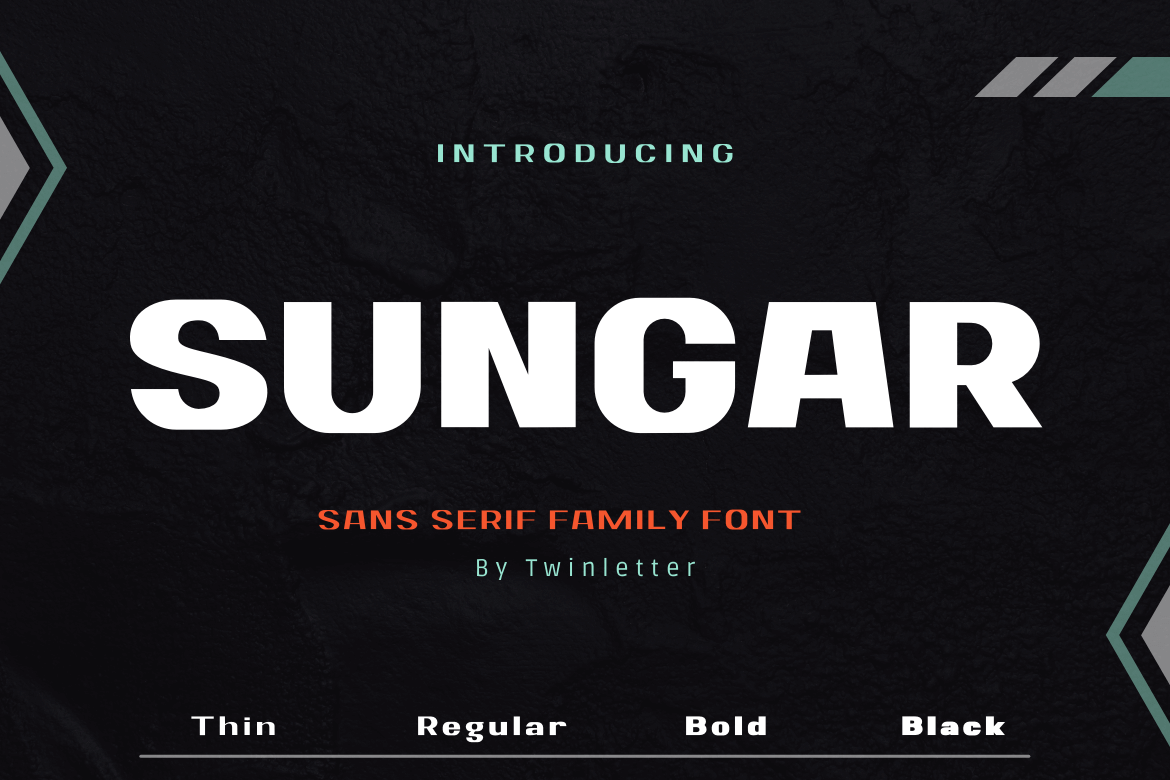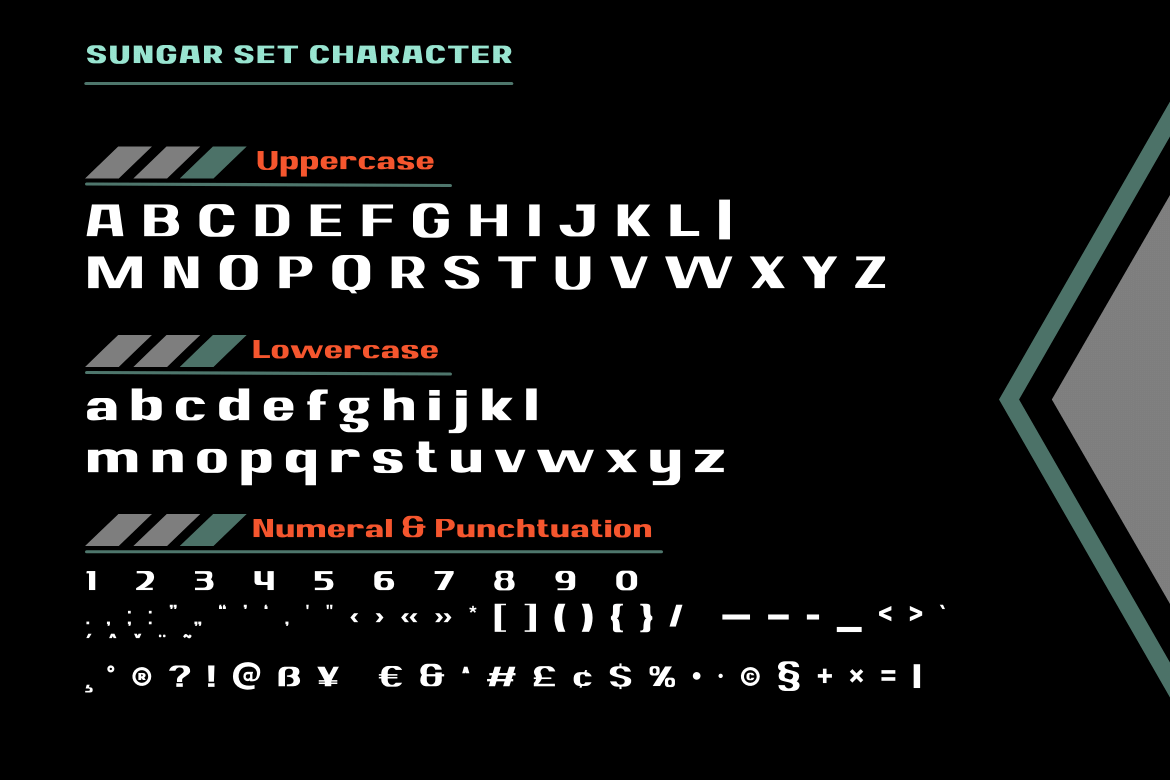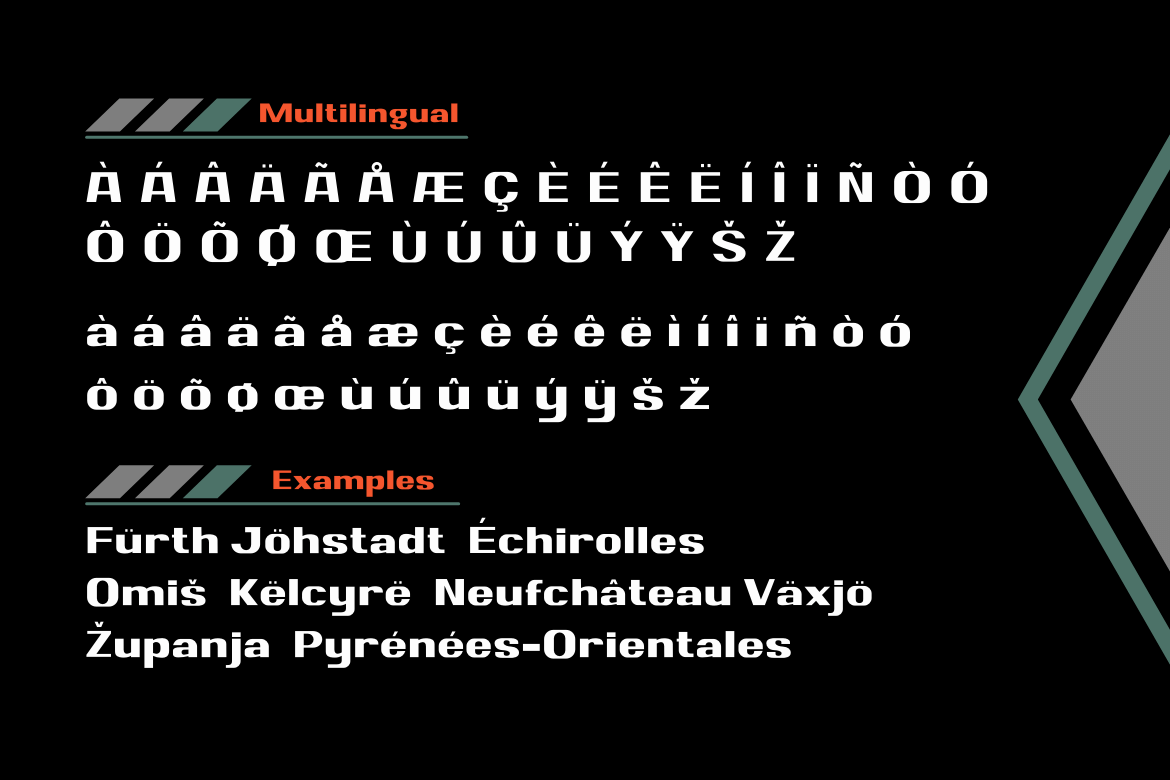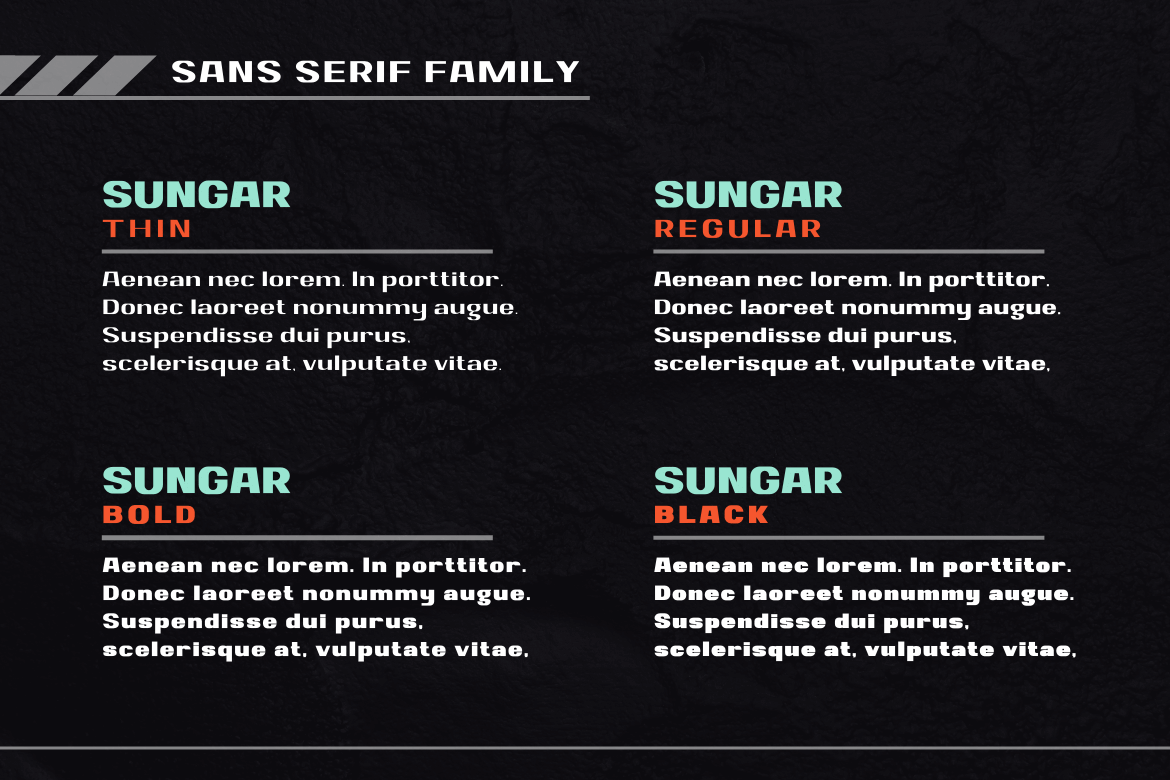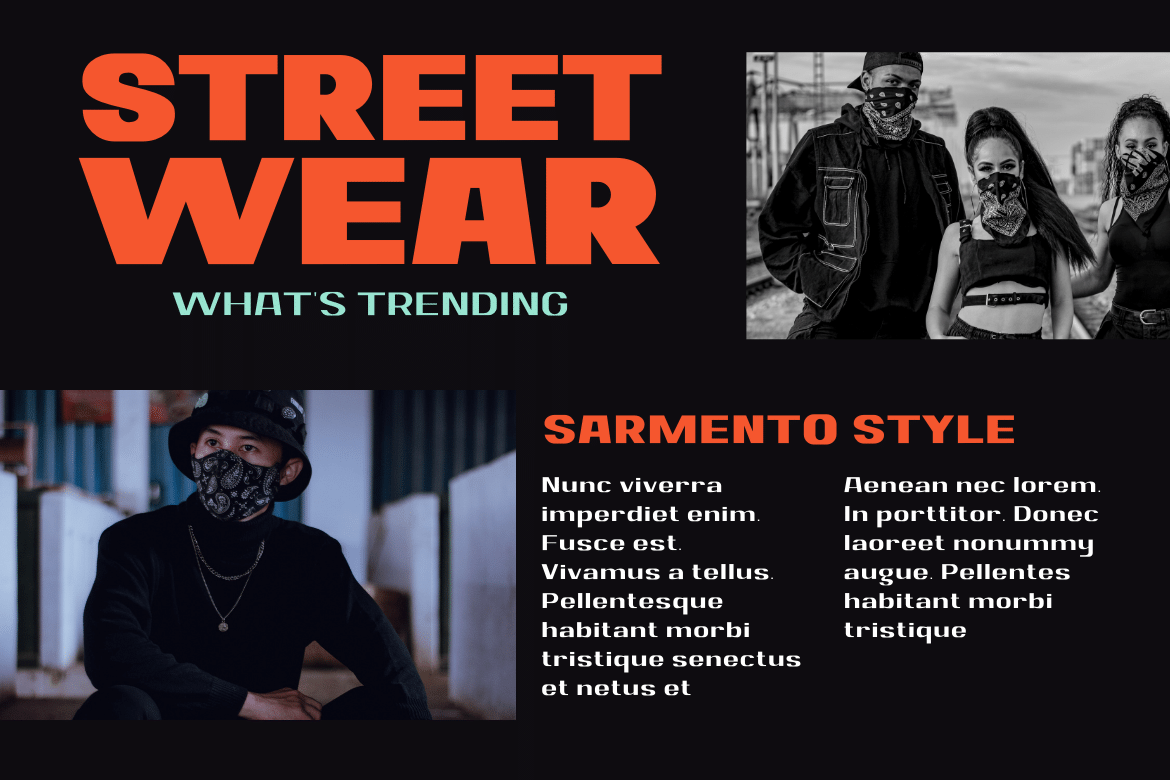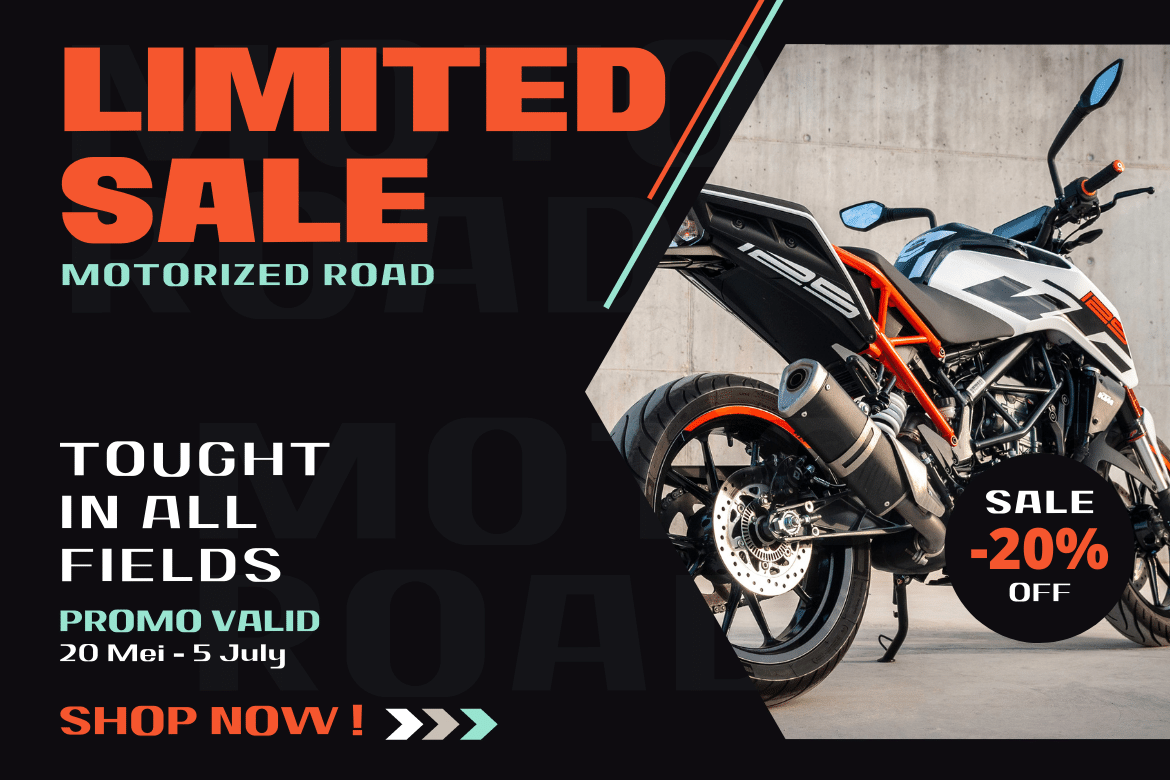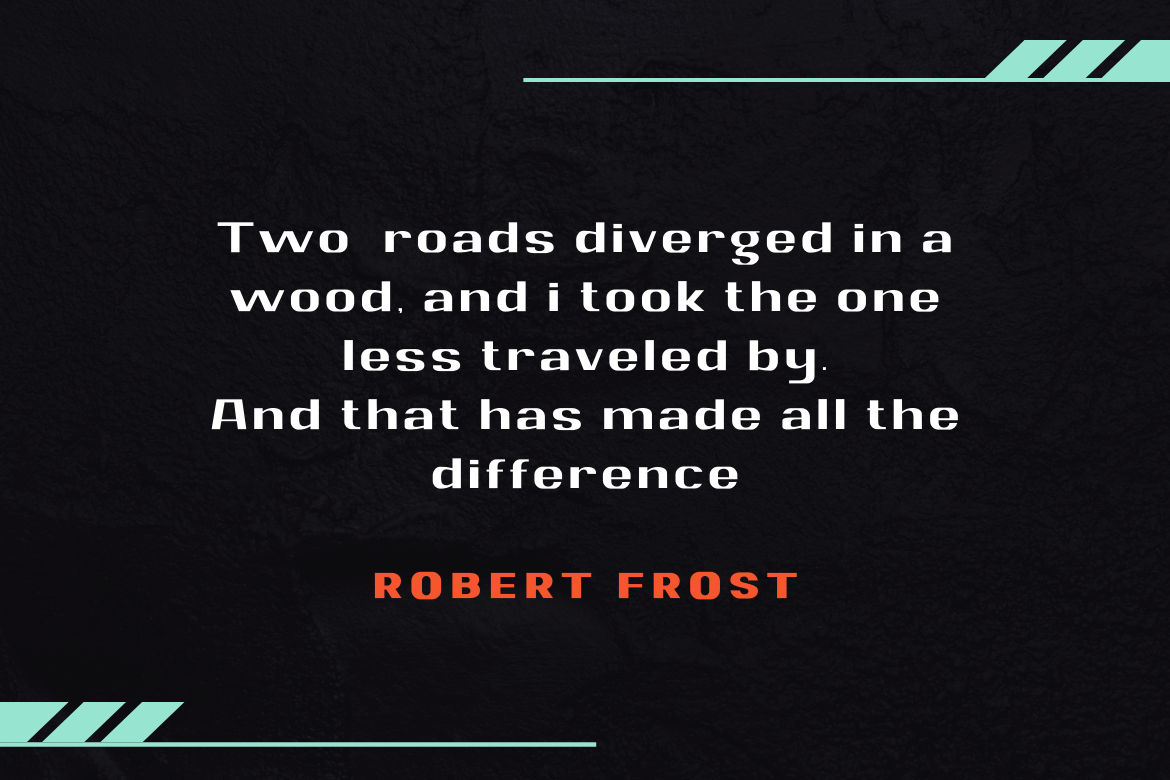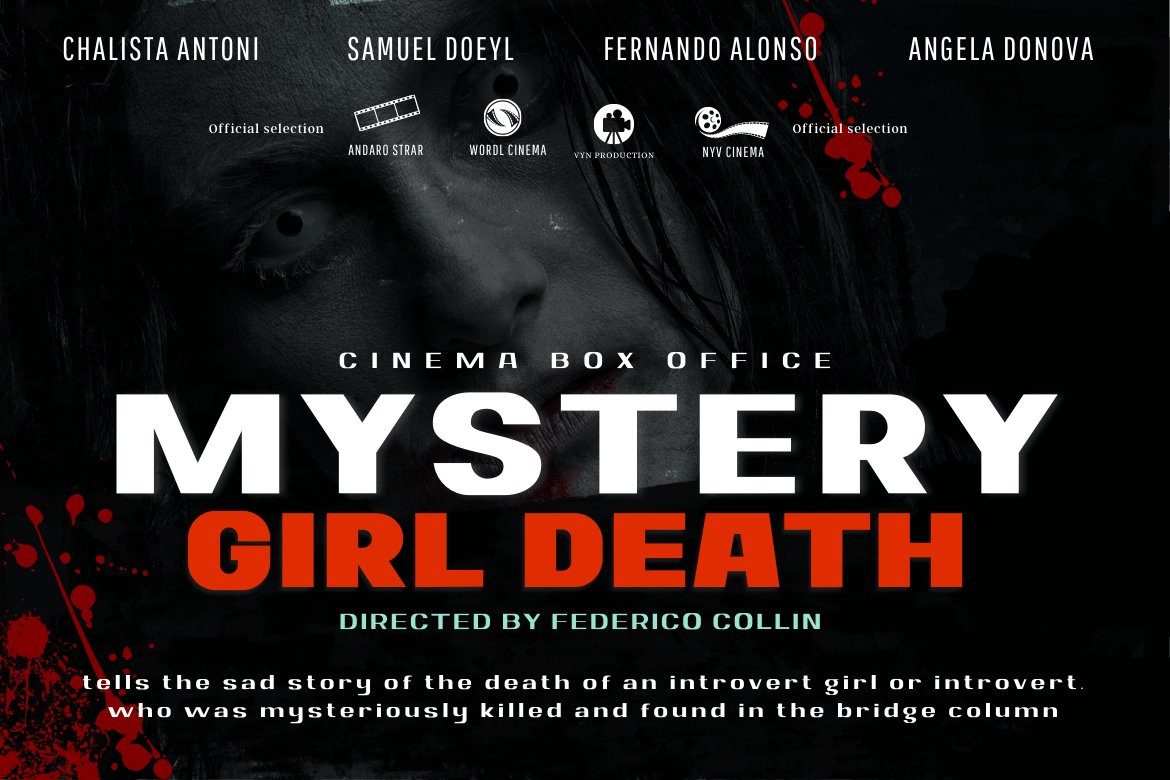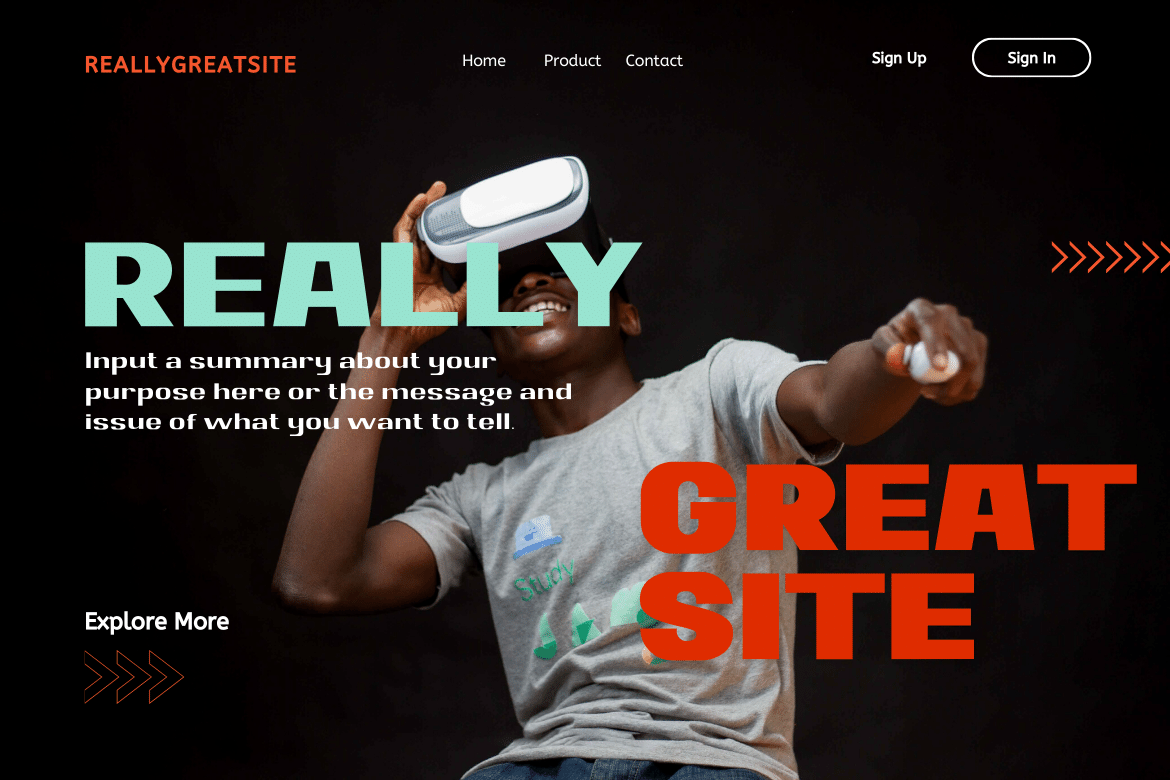
Sungar
Introducing Sungar sans serif font.
Your customers will be captivated by the unique combination of inspiration, craftsmanship, and style that comes with this new typeface. You’ll get the full power of professional design without the hard work or hefty price tag.
Of course, your various design projects will be perfect and extraordinary if you use this font because this font comes with a font family, both for titles and subtitles and sentence text, start using our fonts for your extraordinary projects.
• Fonts include multilingual support for; Afrikaans, Albanian, Croatian, Czech, Danish, Dutch, English, Estonian, Finnish, French, German, Hungarian, Italian, Norwegian, Polish, Portuguese, Slovak, Slovenian, Spanish, Swedish